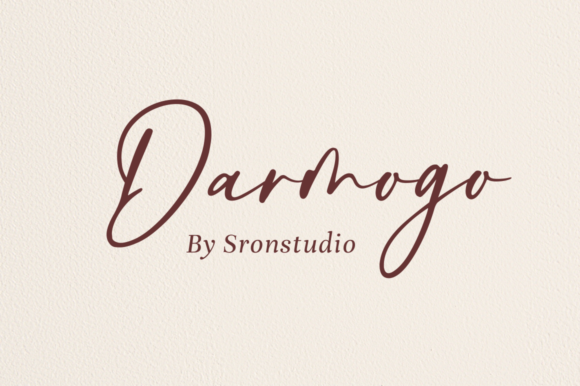
The Perfect Script Font for Your Next Design Project
You know that moment when a spark of creativity hits, and you envision the perfect design for your next project? It’s the moment when all the elements come together in perfect harmony, and you can almost see the final product in your mind’s eye. For designers, this moment is what drives us to create something truly special, and the right font can be the key to unlocking that magic.
That’s where the Darmogo Font comes in – a smooth and cool script font that adds a touch of elegance to any design idea. Its delicate feel makes it perfect for creating a sophisticated and refined look, whether you’re designing a wedding invitation, a logo, or a branding package. The Darmogo Font is a valuable asset for designers who want to take their designs to the next level, and its versatility makes it a great addition to any font collection.
Darmogo Font Key Features
• Character Set: The font features a comprehensive character set, including Latin, Cyrillic, and Greek alphabets, as well as a range of punctuation and special characters.
• Unique Characteristics: Darmogo Font features a unique blend of modern and traditional design elements, with a distinctive, hand-drawn feel and a range of stylistic alternates and ligatures.
Darmogo Font Review
I recently had the chance to work with the Darmogo font, and I must say it’s a unique addition to any design project. ✨ One of the things that really stood out to me is its versatility – the font is available in multiple styles, from bold to italic, making it easy to match with any project’s tone and aesthetic.
• ✨ High-quality rendering: The font is crisp and clear, even at small sizes.
• ✨ Wide character set: Darmogo includes a large range of characters, including accents and special symbols.
• ✨ Versatile styles: As mentioned, the font is available in multiple styles, making it easy to use in a variety of contexts.
Of course, no font is perfect, and Darmogo has its limitations:
• ⚠️ Limited script support: While the font includes a wide character set, it’s not ideal for projects that require extensive script support.
• ⚠️ Some fonts in the family feel a bit inconsistent: While the bold and italic styles are well-designed, some of the other weights feel a bit off.
Overall, I’d say Darmogo is a solid choice for designers looking for a unique and versatile font. While it’s not perfect, its strengths make it a great addition to any project.
Some tips to get the most out of Darmogo Font include using it for creative projects, such as posters, flyers, and social media graphics. It’s also a great font for branding and logos due to its unique and eye-catching design.
Some common use cases for Darmogo Font include:
• Creating eye-catching social media posts
• Designing posters and flyers for events
• Branding and logos for businesses
• Adding a touch of creativity to presentations and reports